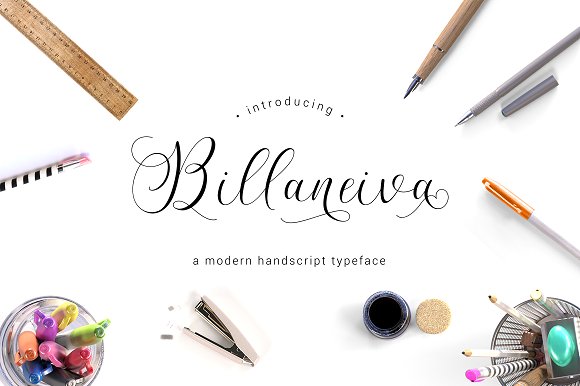
Unveil the Enchanting Billaneiva Font: A Delicate Dance of Lines
In the realm of typography, where letters take form and meaning intertwines, there exists a font that captures the essence of elegance and grace: Billaneiva. This exquisite handwritten font, crafted with meticulous care by Thirtypath, is a true masterpiece that will elevate your creative projects to new heights.
Imagine words flowing across the page like a gentle stream, each character a delicate brushstroke, a whisper of ink on paper. Billaneiva's super thin lines dance across the canvas, creating a visual symphony that captivates the eye and stirs the soul.
With its slender serifs and graceful curves, Billaneiva embodies a timeless beauty that transcends trends. It is a font that speaks of romance and nostalgia, of handwritten letters penned with love and longing. Its delicate strokes evoke the charm of a bygone era, inviting you to immerse yourself in a world of elegance and refinement.
Whether you're designing wedding invitations, crafting heartfelt greeting cards, or creating eye-catching social media graphics, Billaneiva is the perfect choice for adding a touch of sophistication and charm. Its versatility knows no bounds, making it an essential tool in the arsenal of any creative professional.
Step into the world of Billaneiva and experience the magic of handwritten beauty. Let your words take flight, carried by the delicate lines of this enchanting font. Embrace the artistry of typography and elevate your creative expression to new heights.